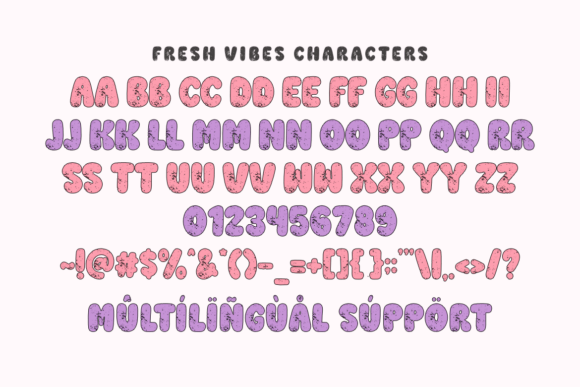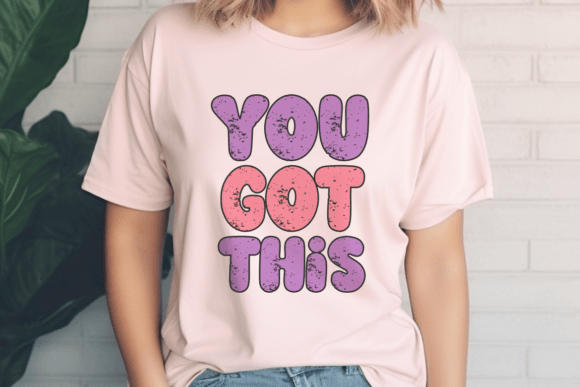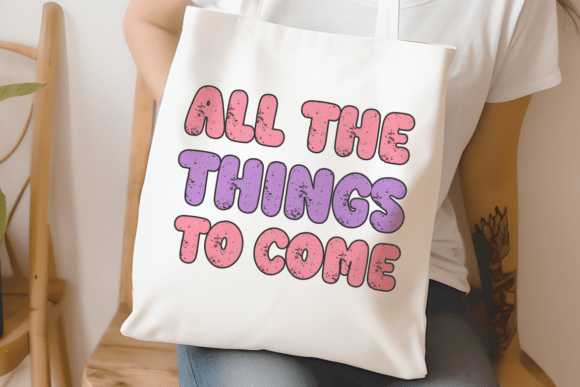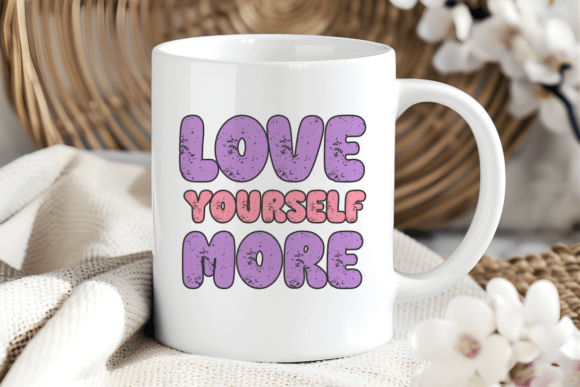
Bringing Your Ideas to Life with Fresh Vibes Texture Font
Have you ever been in the middle of a design project, and suddenly, you’re stuck on finding the perfect font? I recall a recent experience where I was working on a fun project for a client’s children’s party, and I just couldn’t find a font that captured the playful vibe I was going for. That’s when I stumbled upon Fresh Vibes, a charming and playful bubble display font that instantly brought my ideas to life! In this article, we’ll dive into the world of Fresh Vibes, exploring its features, uses, and some helpful tips for getting the most out of this delightful font.
A Personal Review of Fresh Vibes
So, what makes Fresh Vibes so special? Let’s take a closer look.
What I Love About Fresh Vibes ✨
- ✅ Playful and charming design: Fresh Vibes has a unique, bubbly texture that adds a touch of whimsy to any design.
- ✅ Soft curves and bold appearance: This font is perfect for creating eye-catching headlines, posters, social media graphics, and branding materials.
- ✅ Versatile and fun: Fresh Vibes is an excellent choice for a wide range of design projects, from kids’ party invitations to trendy social media posts.
While Fresh Vibes is an amazing font, there are a few things to keep in mind:
- ⚠️ Legibility at small sizes: Due to its textured nature, Fresh Vibes might become less legible at very small font sizes. It’s best used at larger sizes for maximum impact.
- ⚠️ Pairing with other fonts: As with any bold font, be mindful of pairing Fresh Vibes with other fonts to avoid visual overload.
The Story Behind Fresh Vibes
While the origins of Fresh Vibes are shrouded in mystery, it’s easy to imagine a designer sitting in a colorful studio, surrounded by playful patterns and textures, with the goal of creating a font that embodies fun and whimsy. The result is a font that instantly brings a smile to your face and inspires creativity.
| Font Name | Fresh Vibes Texture Font |
| Author | SiapGraph |
| Is Fresh Vibes suitable for body text? | While Fresh Vibes is primarily designed for headlines and display text, it can be used for short paragraphs of body text. However, it’s recommended to use a clearer font for longer blocks of text. |
Fresh Vibes is an incredible font that can instantly elevate your designs with its playful, bubbly texture. With its versatility and charm, it’s an excellent addition to any designer’s toolkit. So go ahead, give Fresh Vibes a try, and watch your ideas come to life!